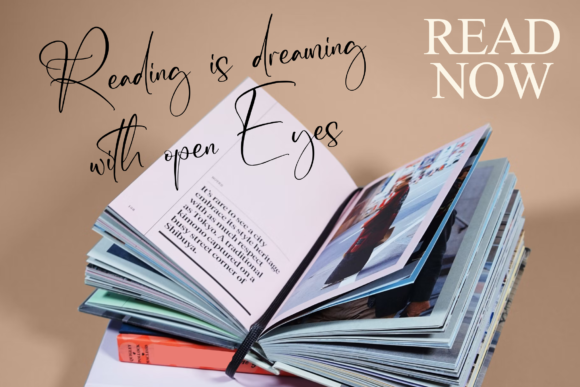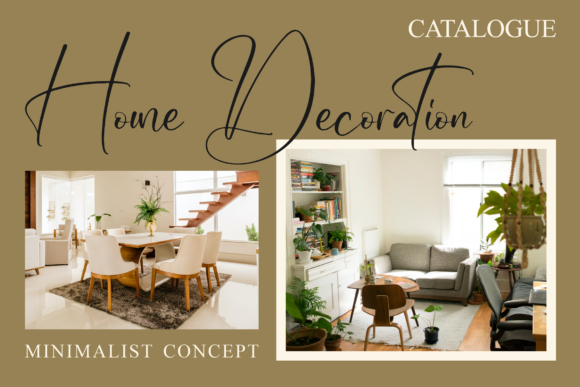
Honelesty Font
db-ku.com - Script & Handwritten -- Honelesty – Beautiful Script Font is suitable for any projects such as logos, branding projects, homeware designs, product packaging, mugs, quotes, posters, shopping bags, t-shirts, book covers, name cards, invitation cards, greeting cards, labels, photography, watermark, special events, and all your other lovely projects that need a beautiful script taste.